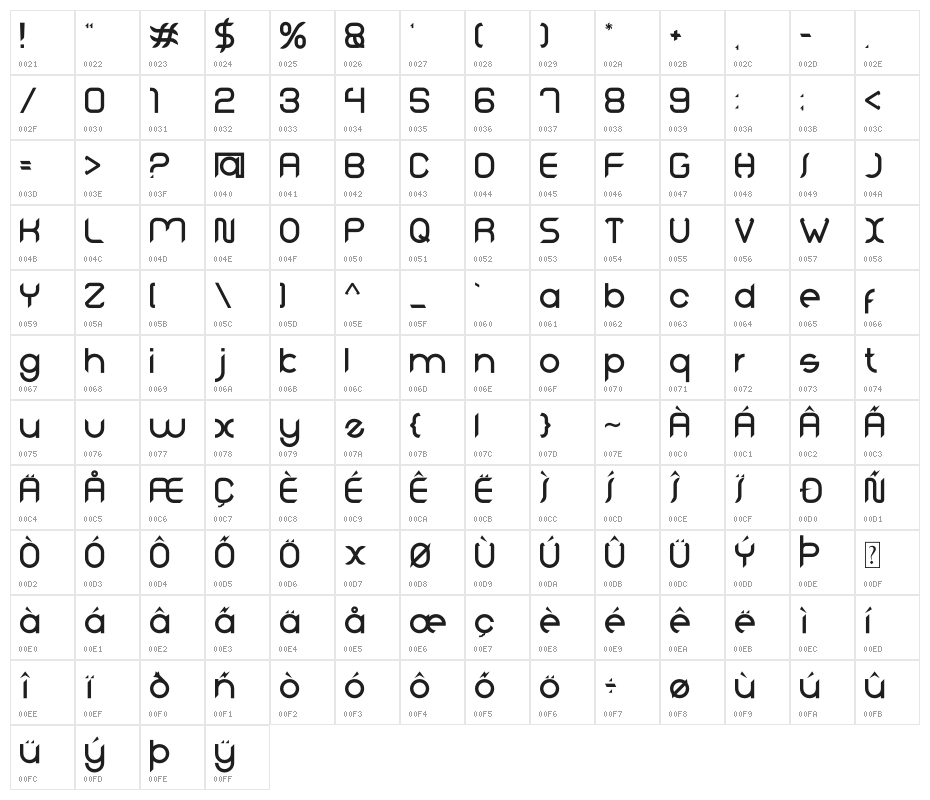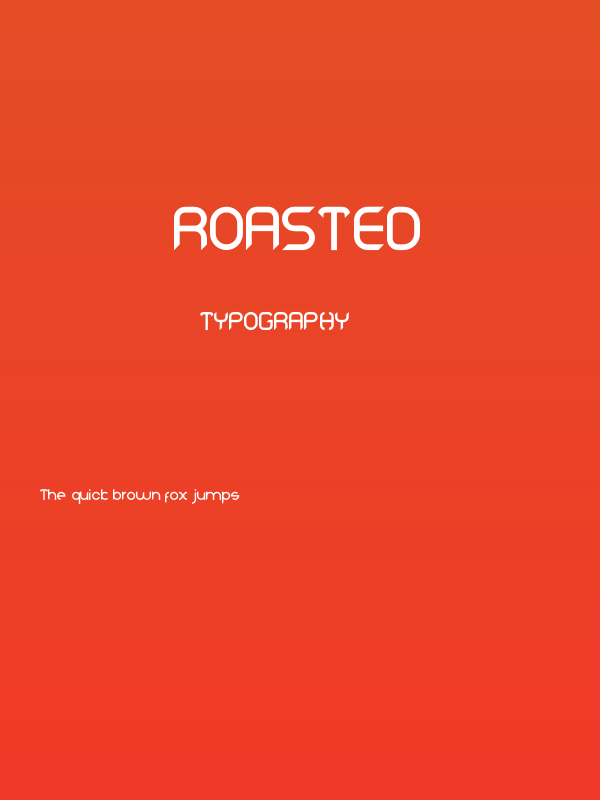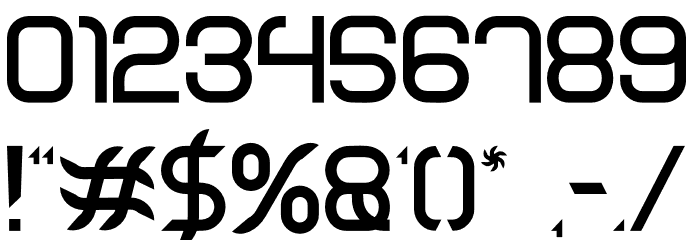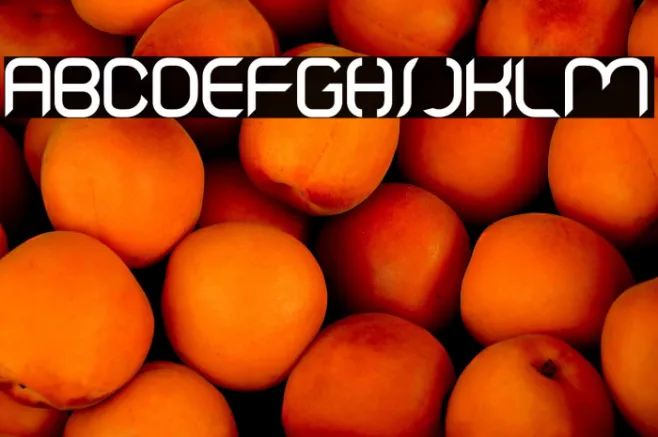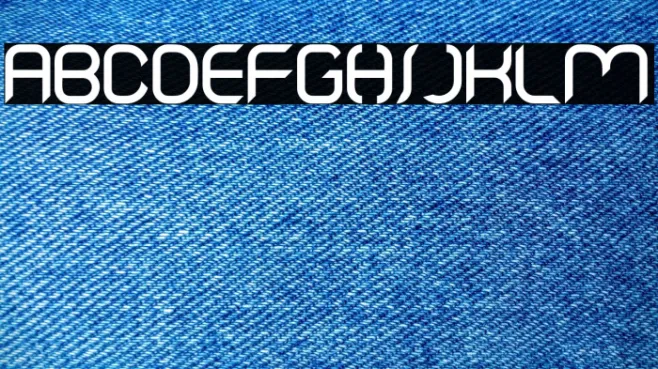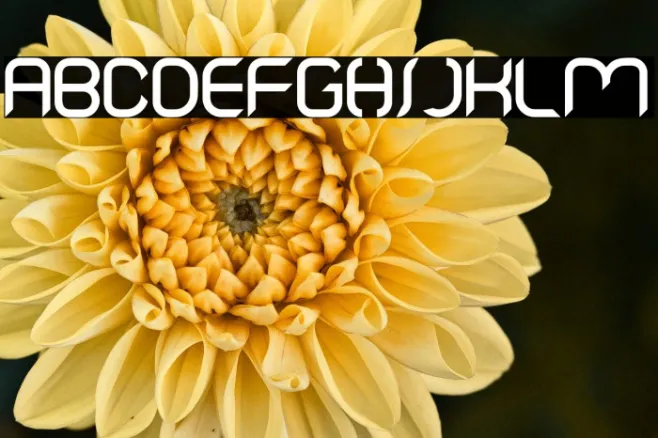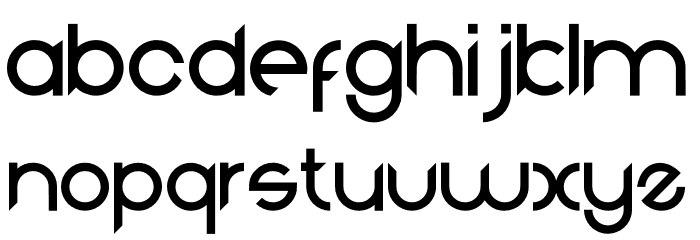
Roasted Font
Roasted Description
This font features a modern and futuristic design with geometric shapes and clean lines. The uppercase letters have a unique angular style, while the lowercase letters maintain a rounded, smooth appearance. The numerals are consistent with the overall geometric theme, providing a cohesive look. Special characters are designed with the same attention to detail, making them stand out while remaining harmonious with the rest of the font. The overall aesthetic is sleek and contemporary, suitable for projects that require a forward-thinking and innovative feel.
| Proposed Projects | Ideal for tech branding, futuristic posters, modern websites, and innovative product packaging. |